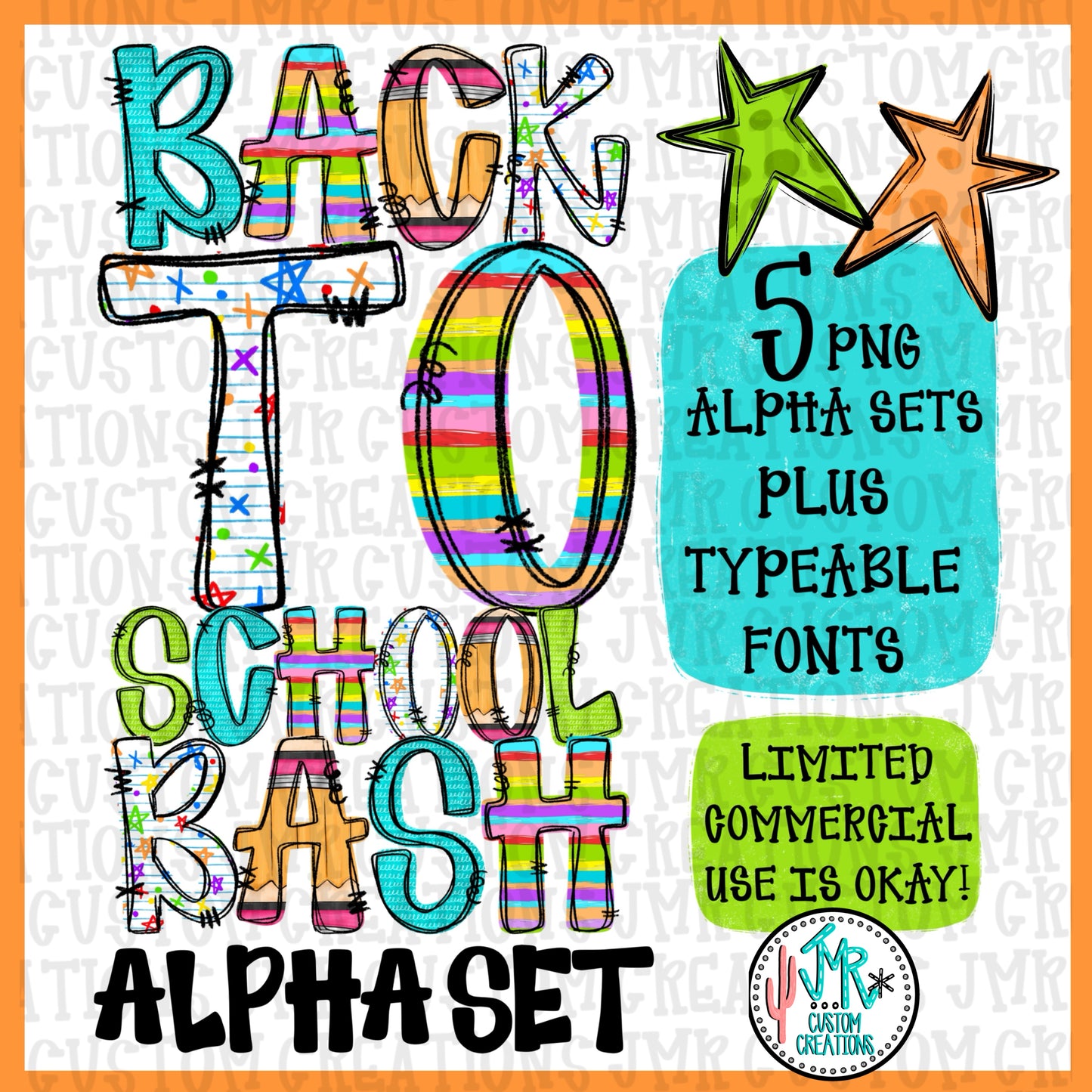
Back to School Bash Alpha Set WITH Typeable OTF Font
This is a DIGITAL Alphabet Design in bright and fun colors and patterns in my Preppy Pop alphabet that is hand-drawn by me! will come with a full alphabet in each pattern shown in the picture. This set includes PNG files AND a Typeable OTF Font. It is ready for you to design whatever you want!